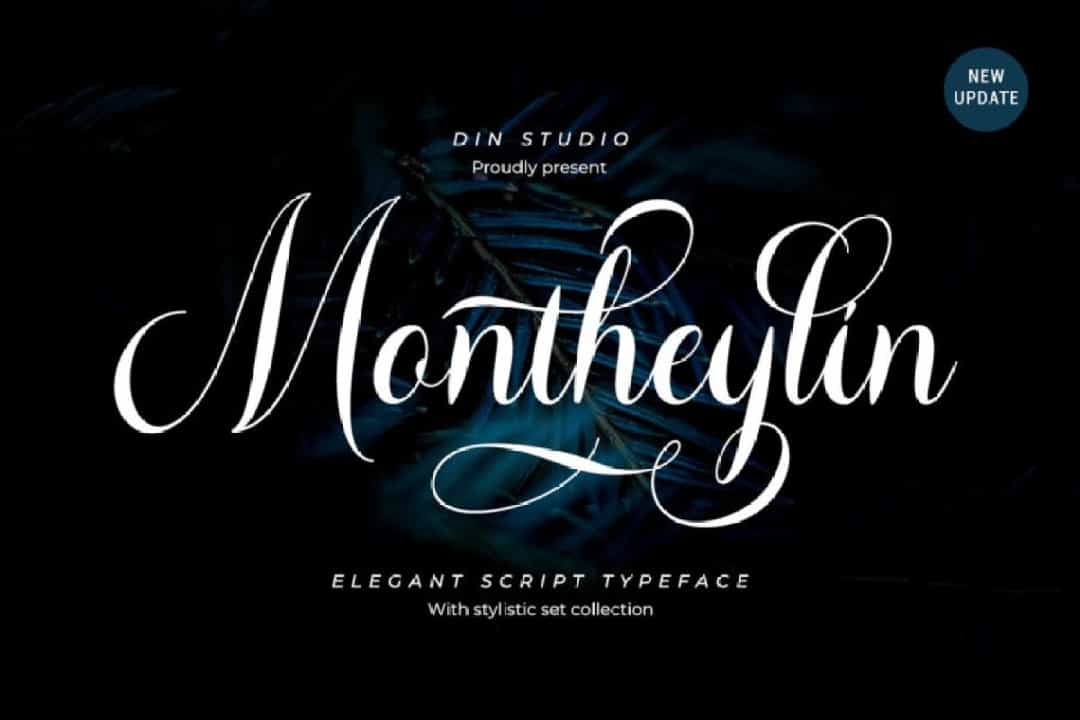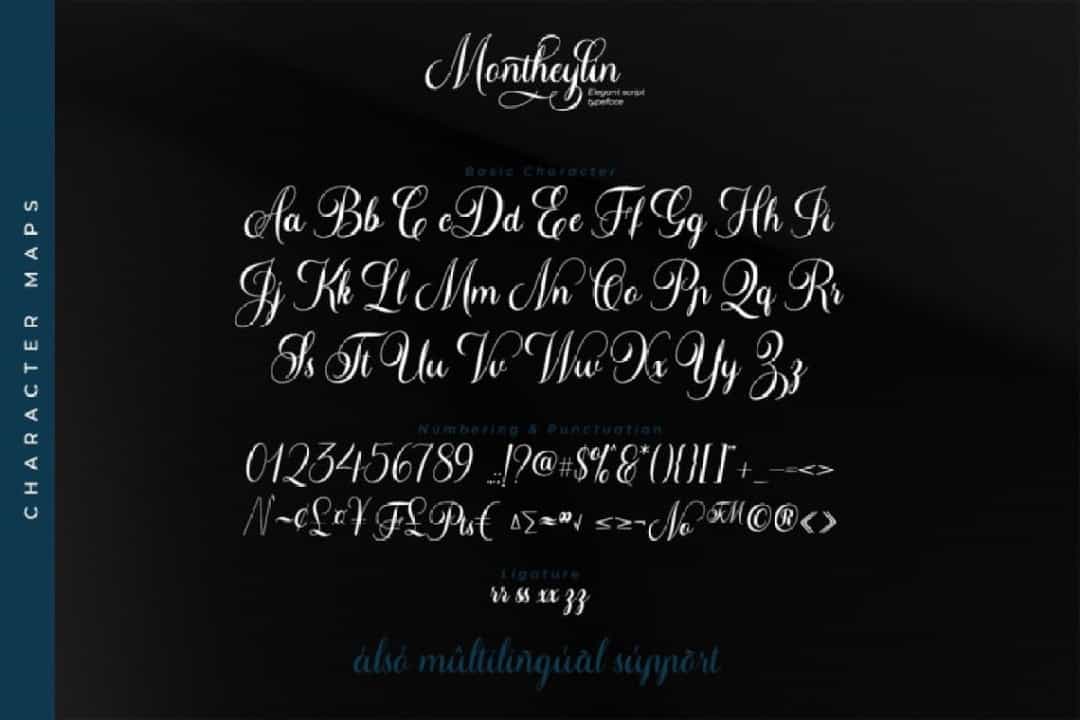
Montheylini is an elegant script featuring natural calligraphy-style strokes. It is an eye-catching modern and contemporary font perfect for professional branding purposes – ideal for use in logos, wedding invitations and quotes.